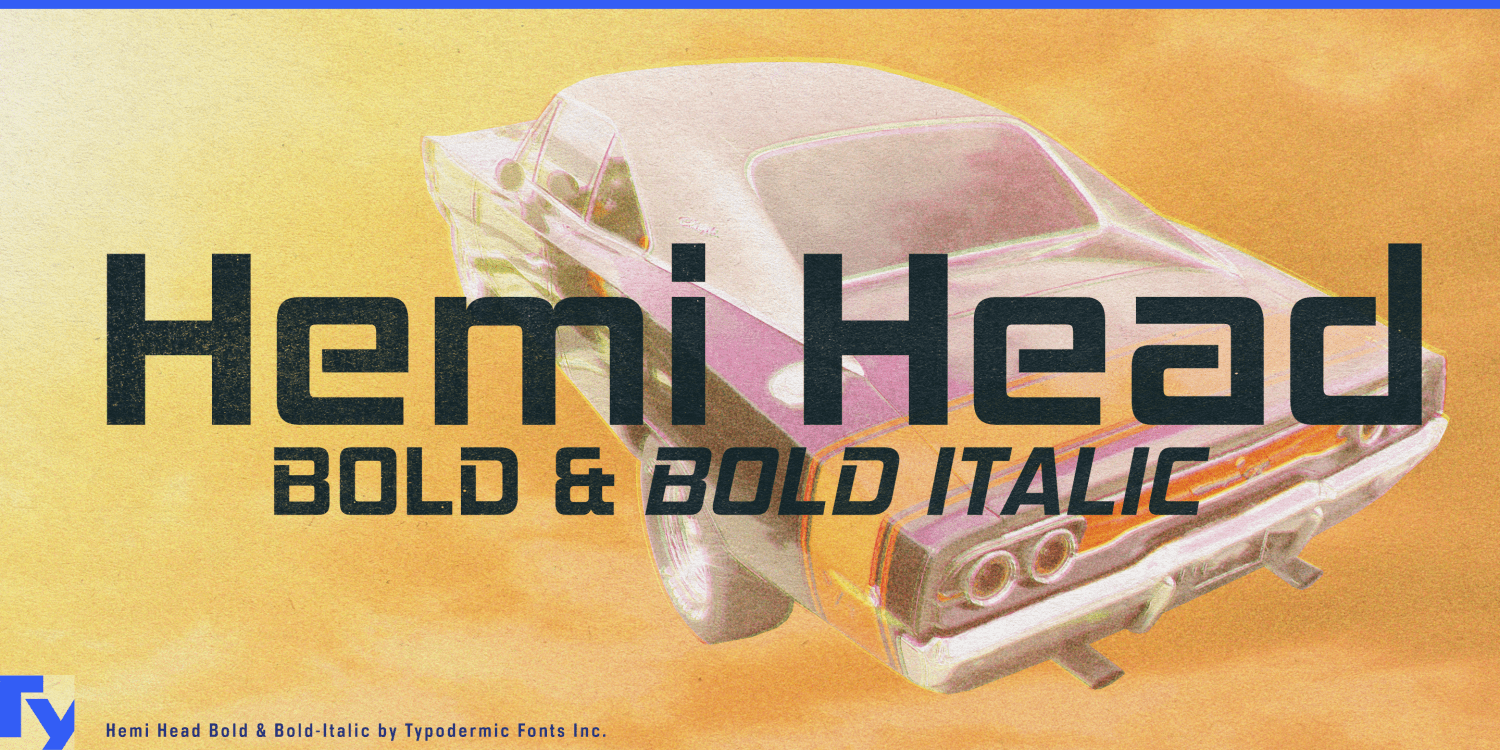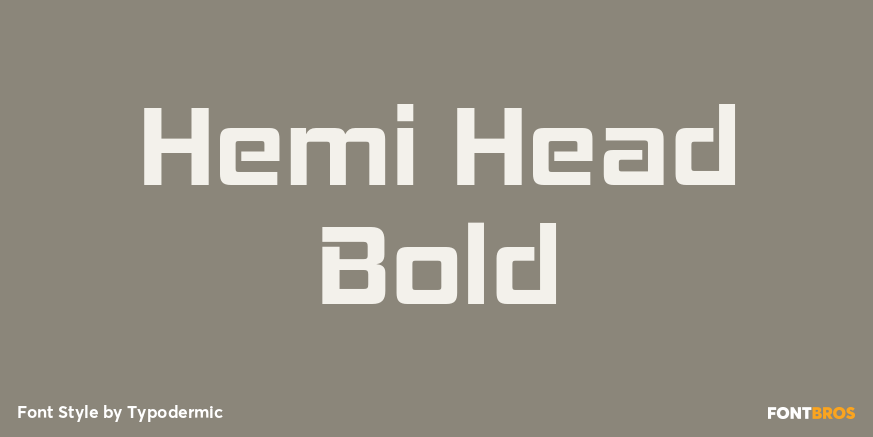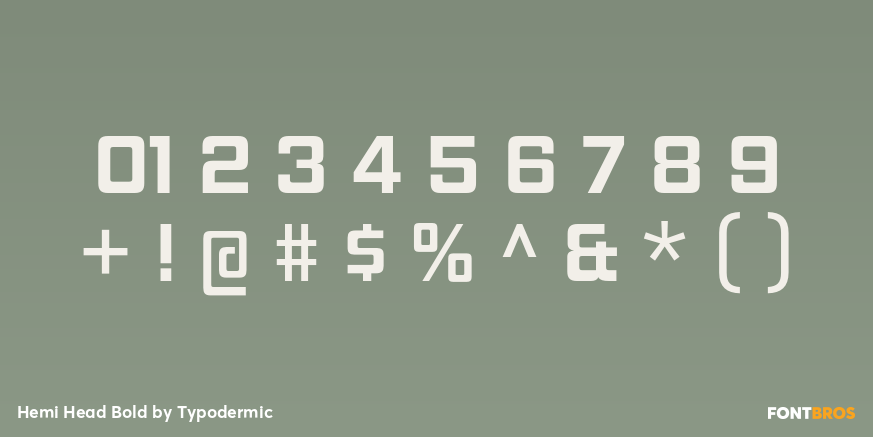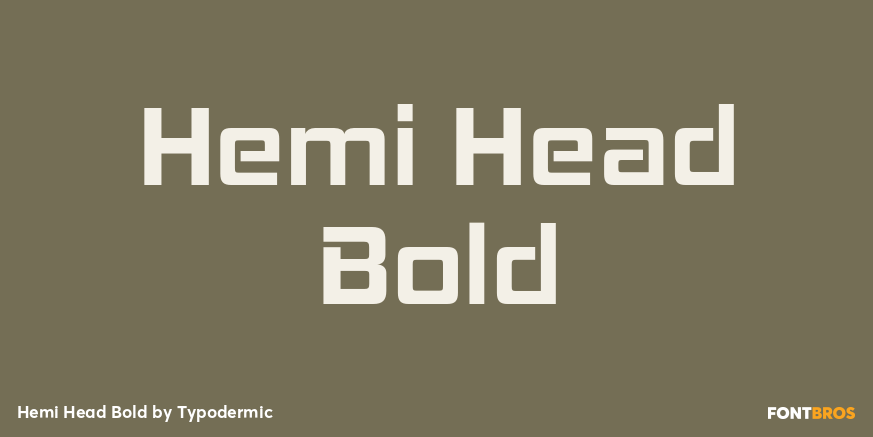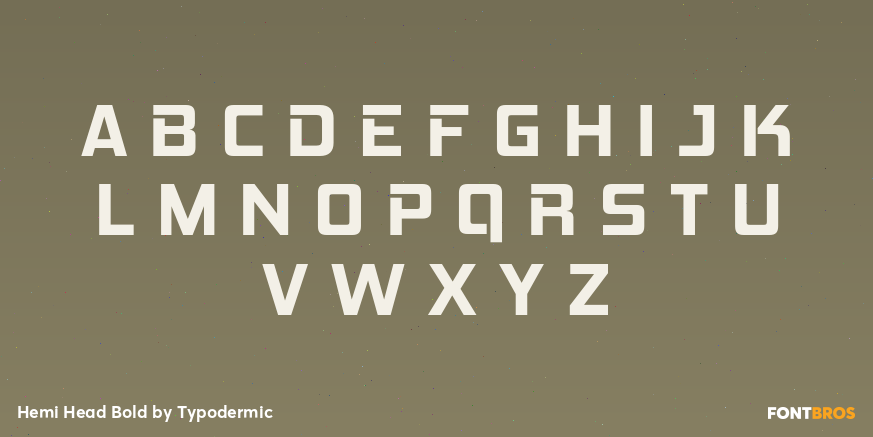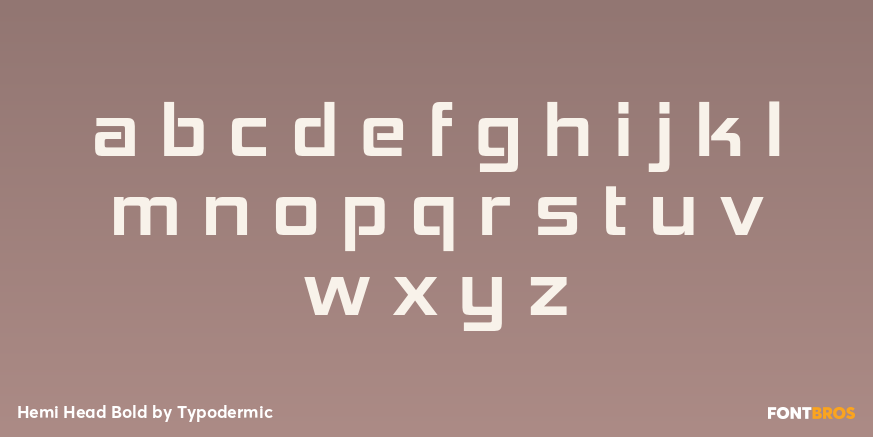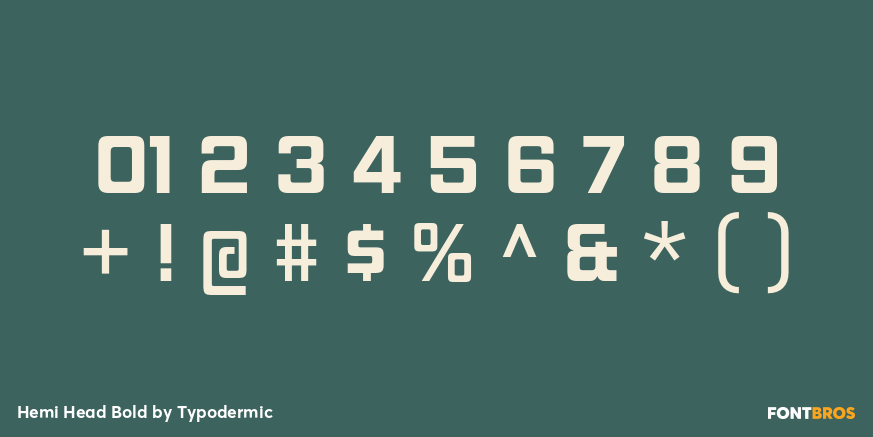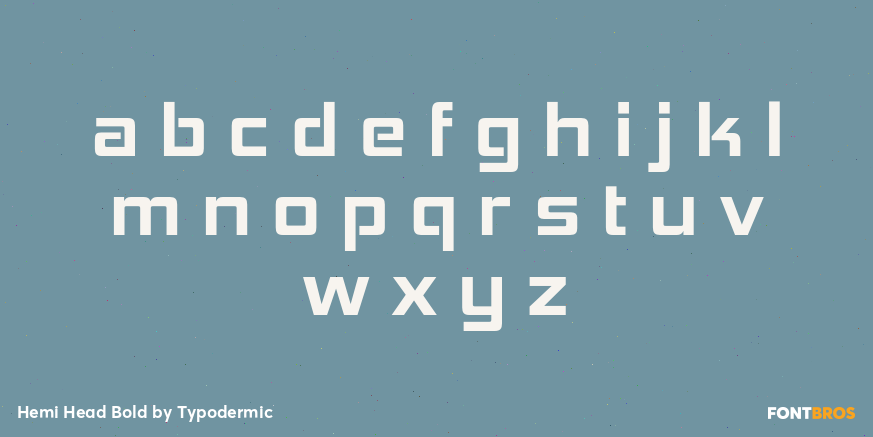
Hemi Head Bold
Performance brands often get trapped between two eras. Lean too heavily on muscle-car graphics and every new model starts looking like a heritage edition; strip away the history in favor of a neutral geometric sans and the connection to mechanical performance disappears. Hemi Head keeps the automotive DNA while giving it enough range to move forward.
The original design grew from squared performance lettering associated with Dodge. Today, the family spans nine weights from Hairline through Heavy, each with a matching italic. That range changes the character dramatically: heavy italics retain the force of classic performance graphics, while lighter uprights reveal a cleaner, more technical structure suited to contemporary vehicles and engineered products.
Hemi Head works especially well for model names, trim designations, performance editions, accessory programs and launch campaigns. Lighter styles can sit beside premium vehicle photography, configurator graphics and technical presentations; heavier weights can take over motor-show displays, launch films, track imagery and large-format vehicle graphics.
That flexibility becomes increasingly useful as performance vehicles combine heritage cues with electrified drivetrains, software-controlled systems, advanced materials and digital instrumentation. Hemi Head carries the historical thread without relying on flames, distress or retro scripts, allowing the surrounding identity to remain thoroughly current.
Aftermarket performance engineering is another natural setting. Suspension systems, brake kits, forged wheels, exhaust equipment, forced-induction systems and ECU products need product-family names that look credible beside machined components and technical photography. Hemi Head provides an automotive voice without making serious hardware feel like novelty racing merchandise. A bold italic can establish the series while lighter uprights handle model identifiers and campaign headings; a restrained companion sans can take care of specifications and fitment information.
Drag racing, time attack, track-day programs and performance-car series can use the family for event names, class titles, paddock graphics, liveries and merchandise. Automotive games and driving simulators can extend the same system across fictional manufacturers, tuning brands, model ranges and championship identities.
Hemi Head began close to the visual language of classic American performance cars, but its expanded family lets that heritage operate as a modern performance system rather than a nostalgic effect.